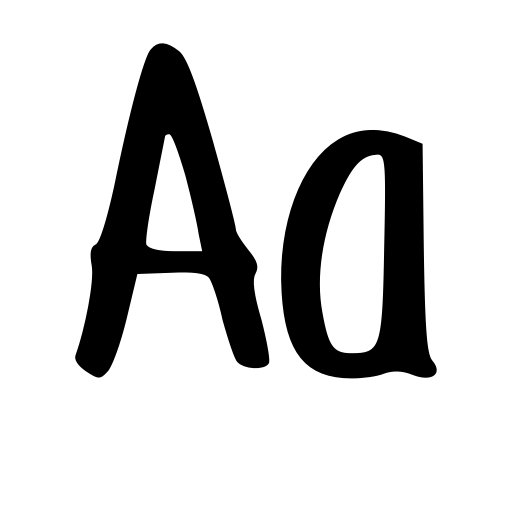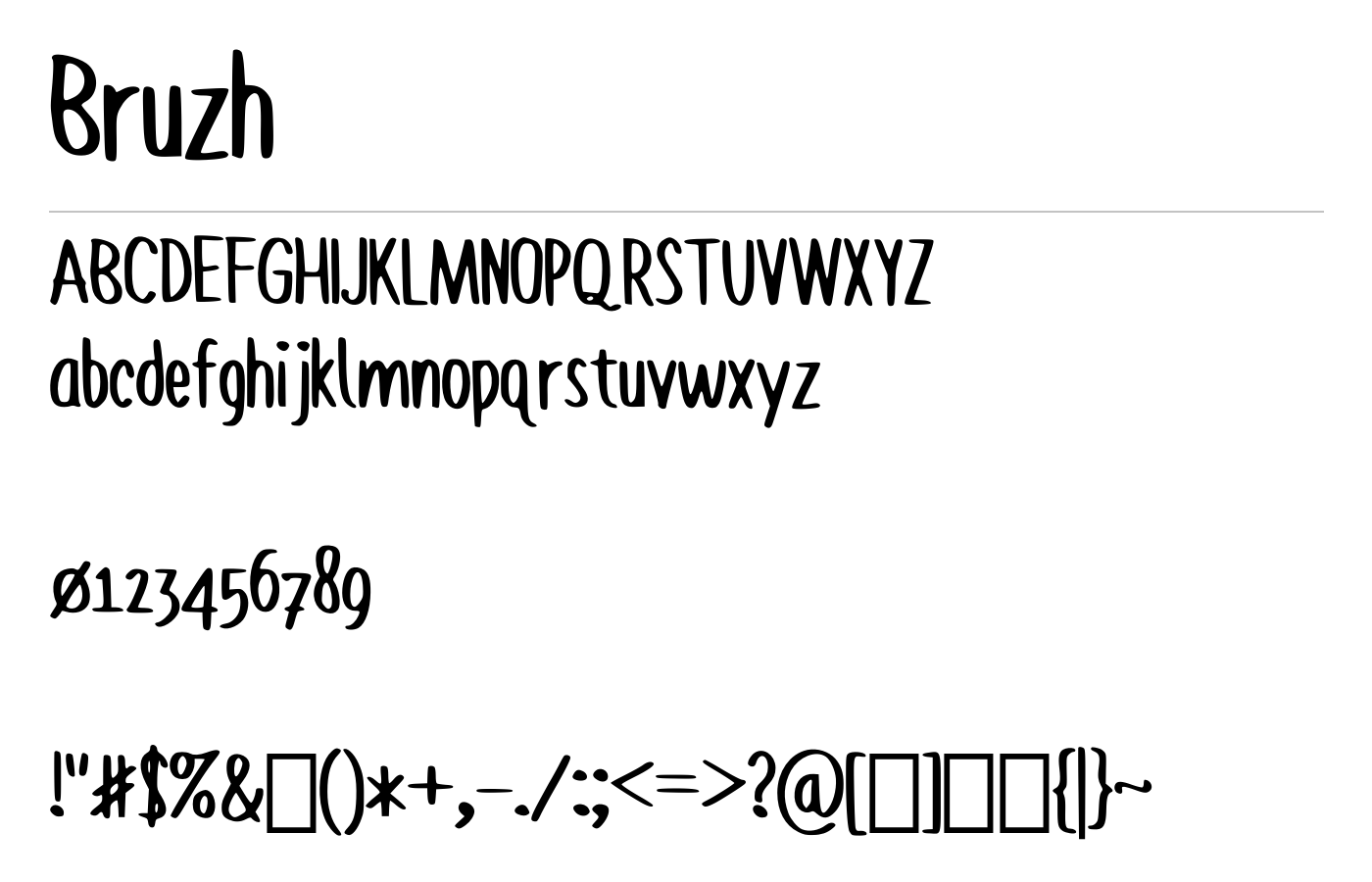
Bruzh is a playful, handwritten sans serif font with tall, narrow letterforms that give it a quirky and informal charm. Its casual style, slightly uneven strokes, and moderate spacing make it perfect for creative, fun projects like children’s books, casual branding, or whimsical posters where a friendly and approachable tone is desired.
Bruzh Font
About Bruzh Font